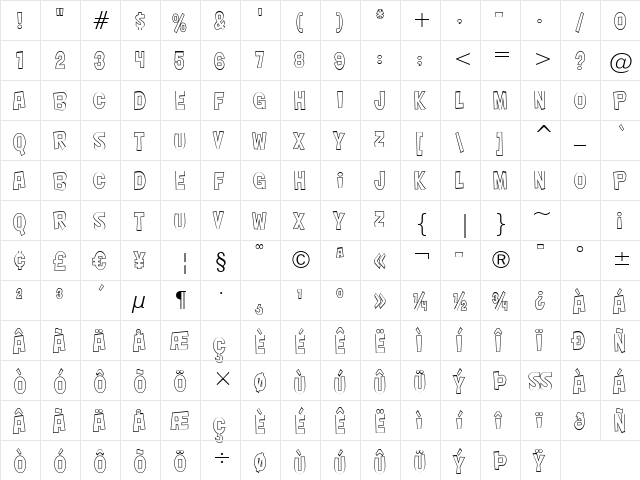
Nightclub BTN Out Cn Regular
Design Context for Nightclub BTN Out Cn Typeface
Nightclub BTN Out Cn is a composed and adaptable typeface that performs quietly and consistently across a wide range of design contexts.